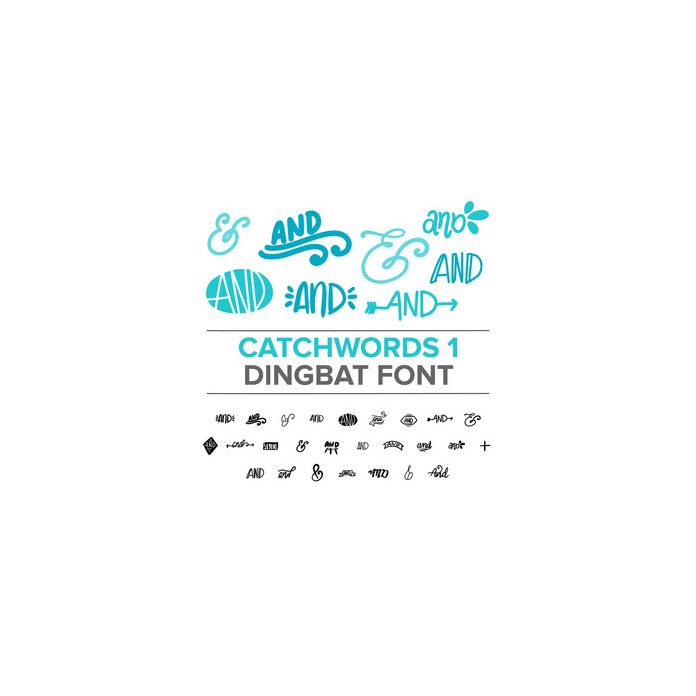
This fonts comes with 26 characters. Use these “and” and ampersant designs for invitations, holiday cards, home decor and other craft projects. This dingbat font comes in OTF format.